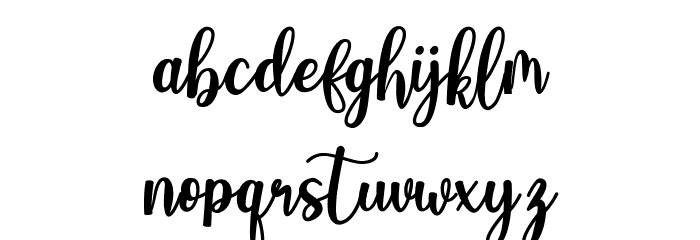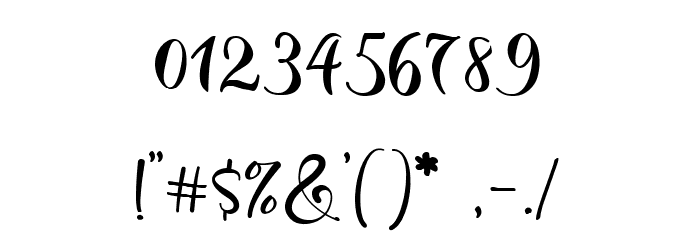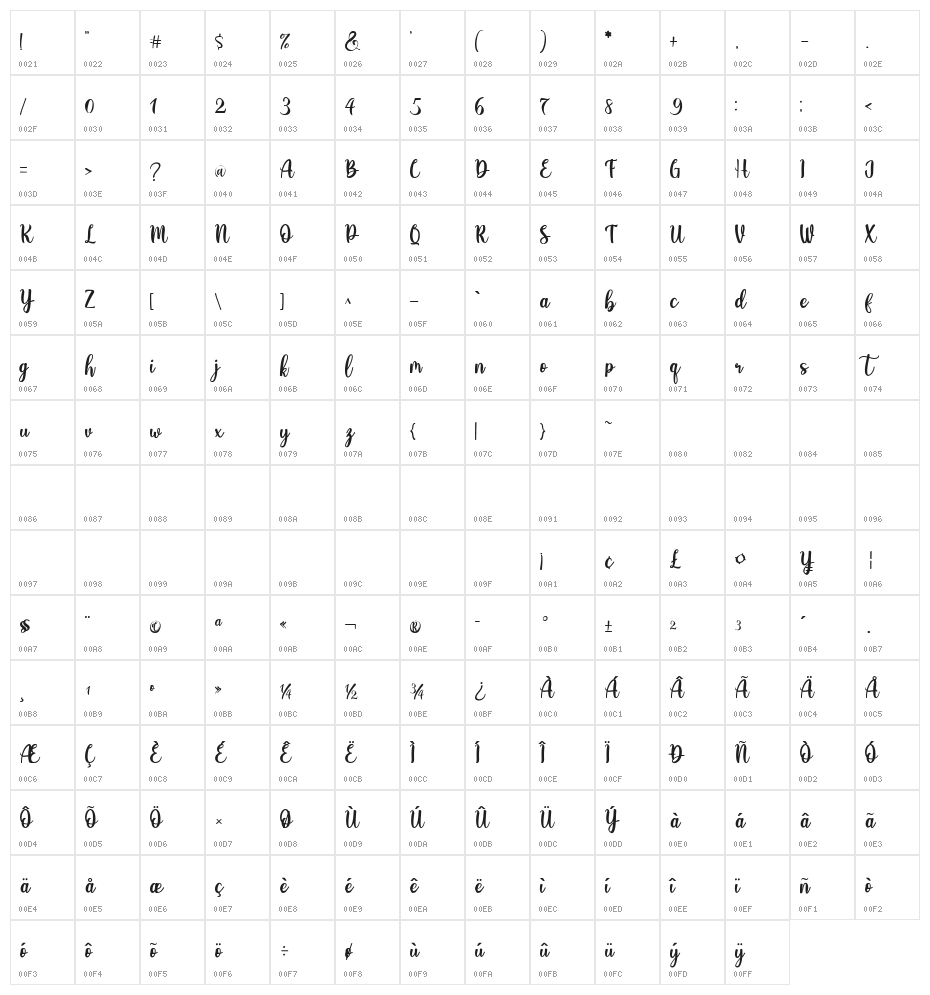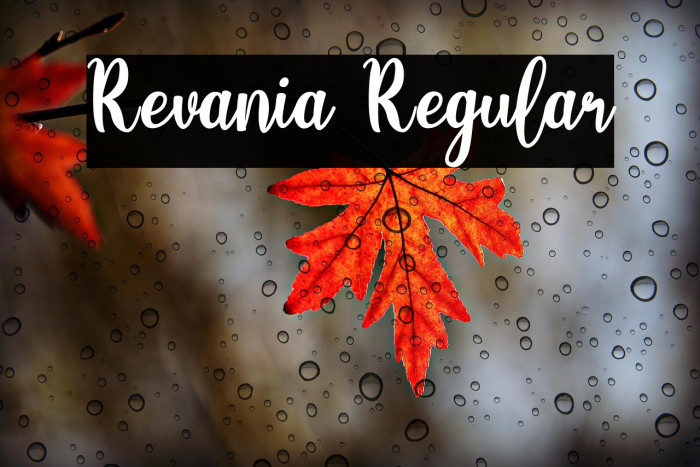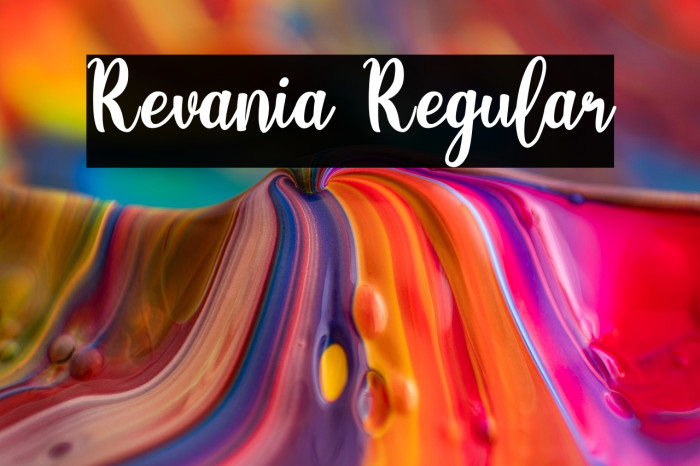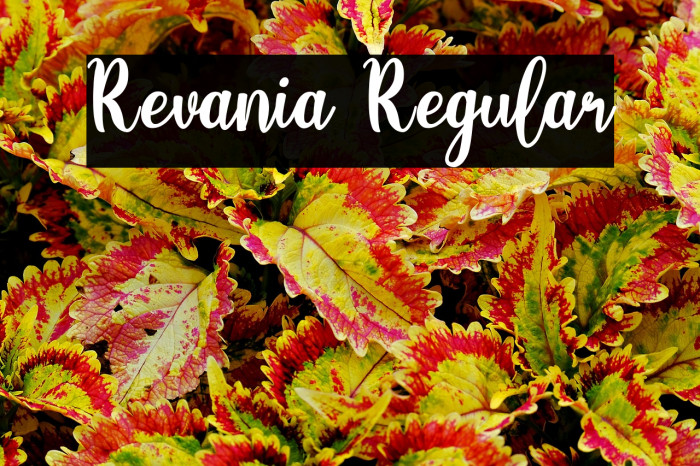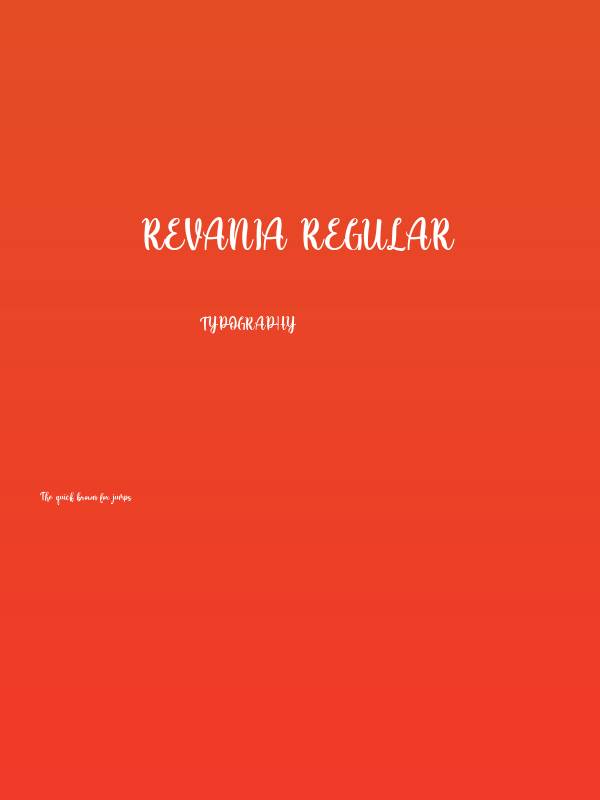
Revania Regular Font
This font features a flowing, cursive style with elegant curves and a playful yet sophisticated appearance. The uppercase letters are bold and prominent, with distinctive loops and swirls that add a touch of flair. The lowercase letters maintain a consistent style, with smooth connections between characters that enhance readability. Numbers are clear and well-defined, matching the overall aesthetic. Special characters are creatively designed, integrating seamlessly with the rest of the font. This font exudes a sense of elegance and creativity, making it suitable for a variety of design projects.
A flowing, cursive font with elegant curves and playful sophistication.
- Proposed Projects: Ideal for wedding invitations, greeting cards, branding, and elegant packaging designs.